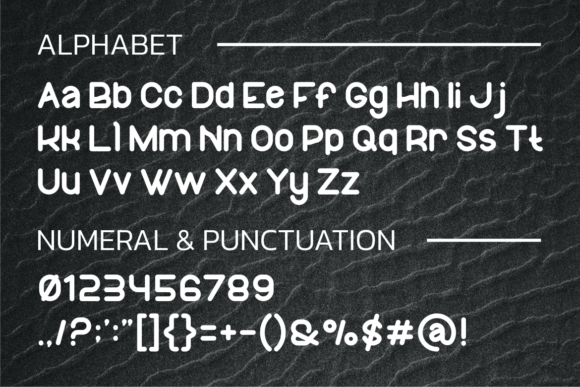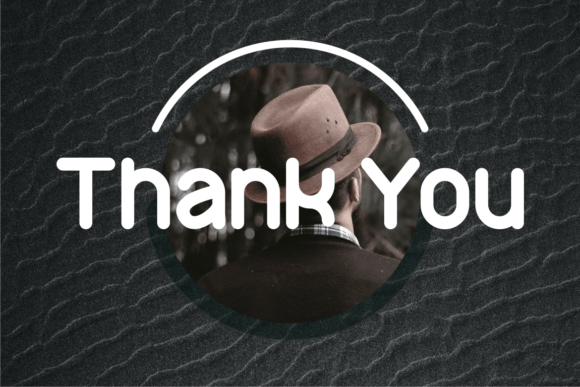
Introducing Elliptical Font: Elevate Your Designs with a Fun and Casual Display Font
Are you tired of using the same old fonts in your designs? Look no further than Elliptical Font, a fun and casual display font that’s sure to take your creations to the next level. With its unique and playful style, Elliptical Font is perfect for designers and crafters looking to add a touch of personality to their work.
What is Elliptical Font?
Elliptical Font is a display font designed to make a statement. Its elliptical shape gives it a distinctive look that’s both modern and eye-catching. The font is perfect for use in a variety of design projects, from posters and flyers to social media graphics and website headers.
Why Choose Elliptical Font?
So why choose Elliptical Font over other fonts on the market? For starters, its fun and casual style makes it perfect for designs that need a playful touch. Whether you’re creating a children’s book, a party invitation, or a social media graphic, Elliptical Font is sure to add a smile to your audience’s face.
But Elliptical Font is more than just a pretty face. It’s also incredibly versatile, making it suitable for use in a wide range of design projects. Whether you’re a professional designer or a DIY crafter, Elliptical Font is a great addition to your font library.
Key Features of Elliptical Font
So what sets Elliptical Font apart from other fonts on the market? Here are just a few of its key features:
- Unique Elliptical Shape: The font’s elliptical shape gives it a distinctive look that’s both modern and eye-catching.
- Fun and Casual Style: Elliptical Font is perfect for designs that need a playful touch.
- Highly Versatile: The font is suitable for use in a wide range of design projects, from posters and flyers to social media graphics and website headers.
- Easy to Read: Despite its playful style, Elliptical Font is easy to read, even at small sizes.
How to Use Elliptical Font
So how can you use Elliptical Font in your designs? Here are a few ideas to get you started:
- Posters and Flyers: Use Elliptical Font as a headline font to grab attention and add a playful touch to your posters and flyers.
- Social Media Graphics: Add a fun and casual touch to your social media graphics with Elliptical Font.
- Website Headers: Use Elliptical Font as a header font to add a playful touch to your website.
- Crafting Projects: Elliptical Font is perfect for use in crafting projects, such as scrapbooking and card making.
Tips for Pairing Elliptical Font with Other Fonts
When pairing Elliptical Font with other fonts, there are a few things to keep in mind. Here are a few tips to help you create a harmonious and visually appealing design:
- Pair with a Serif Font: Pairing Elliptical Font with a serif font can create a nice contrast and add visual interest to your design.
- Use a Simple Font: When pairing Elliptical Font with another font, it’s best to use a simple font that won’t compete with the playful style of Elliptical Font.
- Experiment with Font Sizes: Don’t be afraid to experiment with different font sizes to create visual interest and hierarchy in your design.
In conclusion, Elliptical Font is a fun and casual display font that’s perfect for designers and crafters looking to add a playful touch to their work. With its unique elliptical shape, highly versatile style, and ease of use, Elliptical Font is a great addition to any font library. Whether you’re creating posters, social media graphics, or crafting projects, Elliptical Font is sure to elevate your designs and take them to the next level.